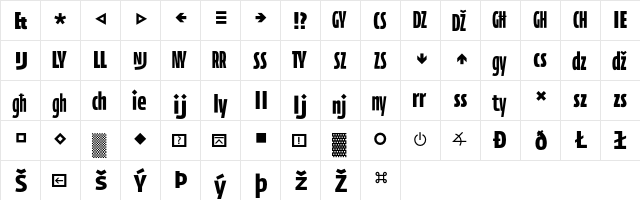
Fedra Mono Bold Expert
Design Context for Fedra Mono Typeface
Fedra Mono uses fixed-width spacing throughout, giving it the structured, systematic character associated with coding environments and technical documentation. The heavy weight commands attention and anchors typographic hierarchies.
Pro Tip: Use Fedra Mono with slightly increased line-height for extended reading — fixed-width spacing can feel dense in longer passages without extra breathing room.